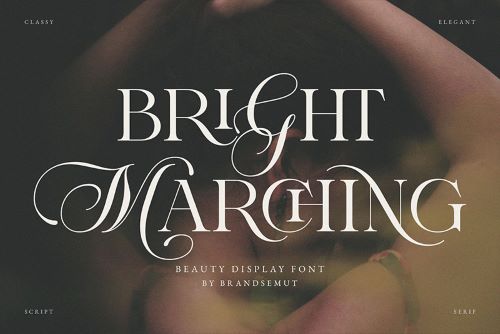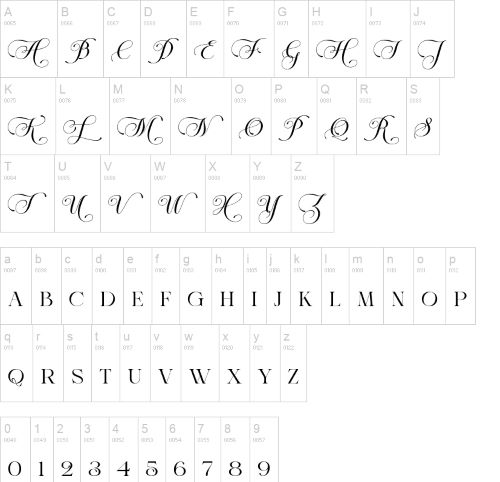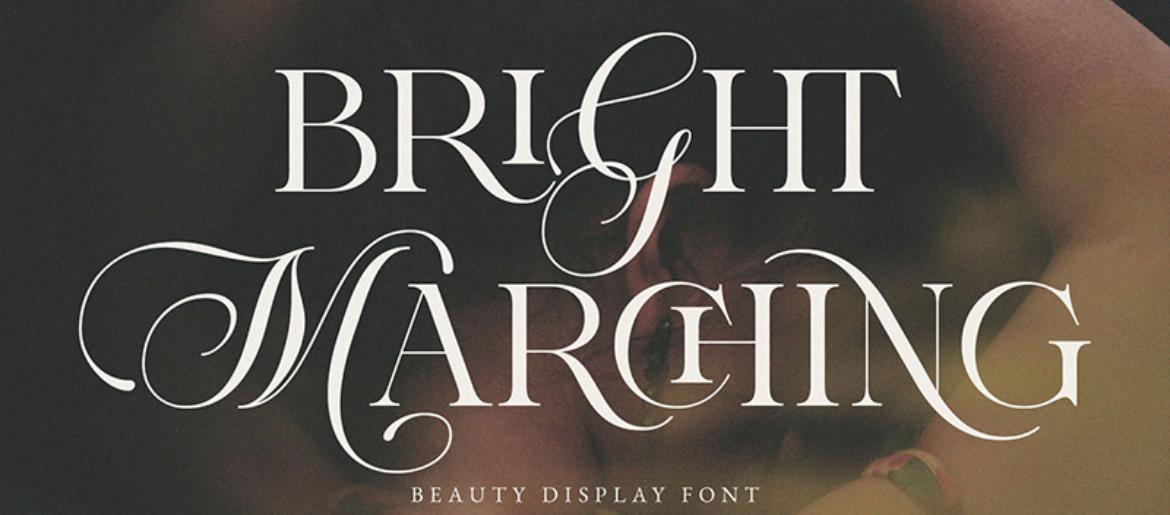
Bright Marching Font
Bright Marching Font is a versatile display typeface that blends elegant serif and flowing script styles. With rich stylistic alternates and decorative details, it’s perfect for headings, logos, branding, magazines, product packaging, and invitations. Bright Marching delivers a bold yet refined personality that brings creativity and sophistication to any design.